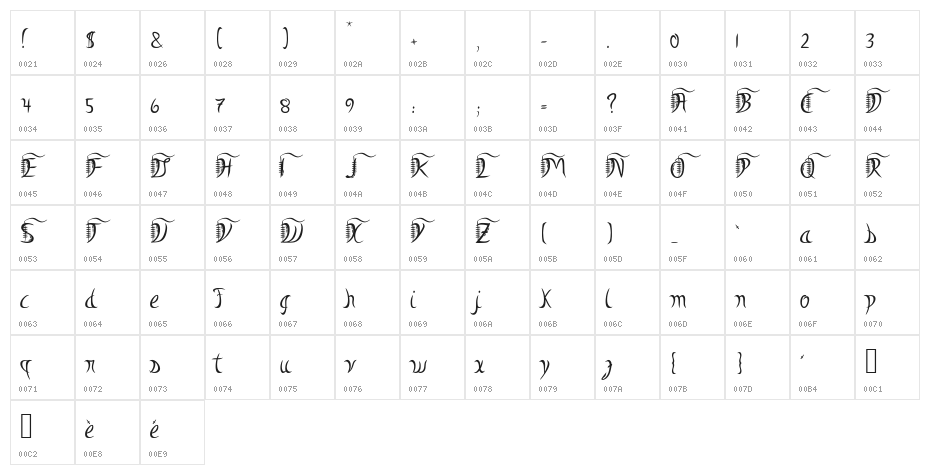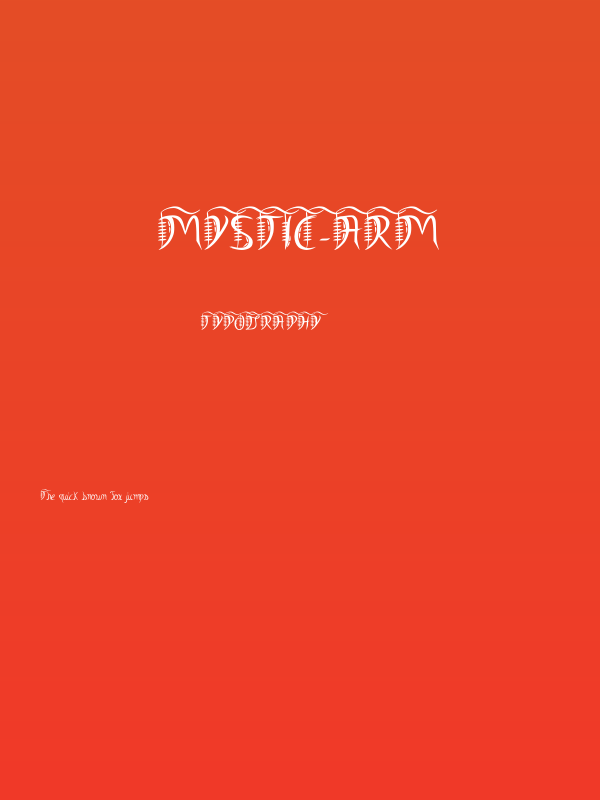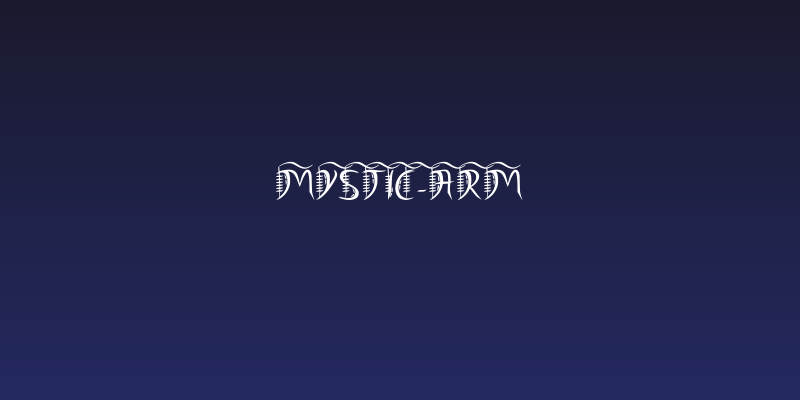
Mystic-Arm Font
Mystic-Arm Description
This font features an intricate and decorative style with a gothic influence. The uppercase letters are adorned with sharp, angular lines and unique embellishments that give them a mystical appearance. The lowercase letters maintain a fluid and elegant form, with some characters extending below the baseline, adding to the font's dynamic nature. Numbers and special characters are designed to match the ornate style, ensuring consistency throughout. The overall design is highly stylized, making it suitable for projects that require a dramatic and artistic touch.
| Overall Style | Gothic, Decorative |
| Proposed Projects | Ideal for fantasy book covers, gothic-themed posters, tattoo designs, and artistic branding. |